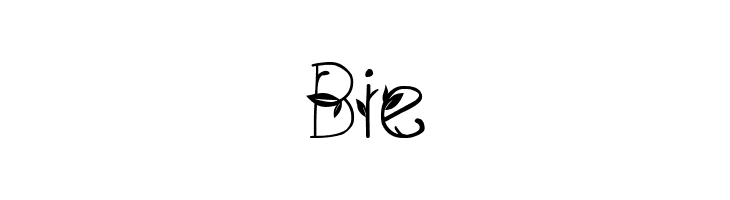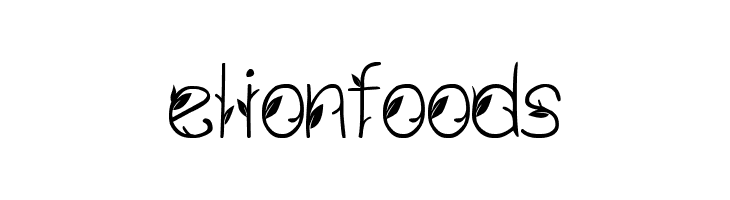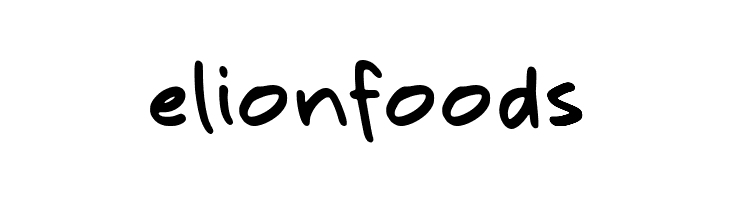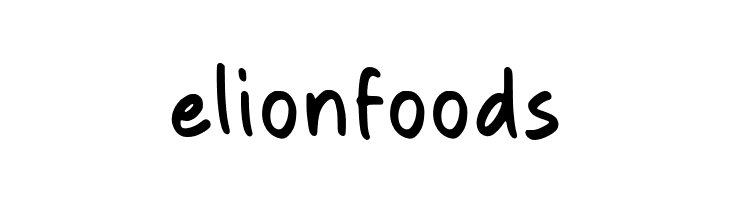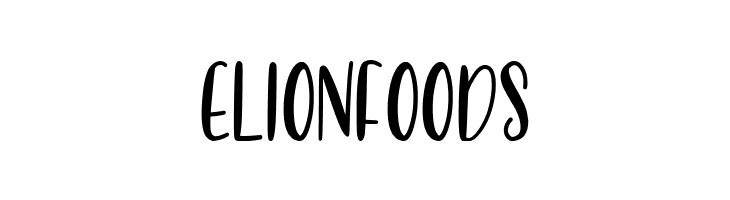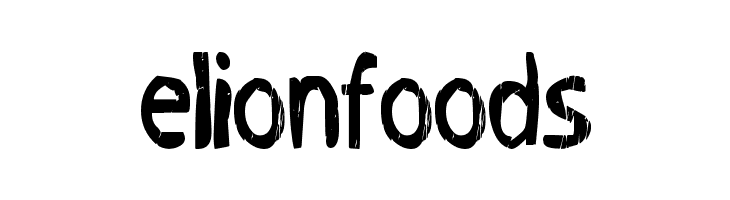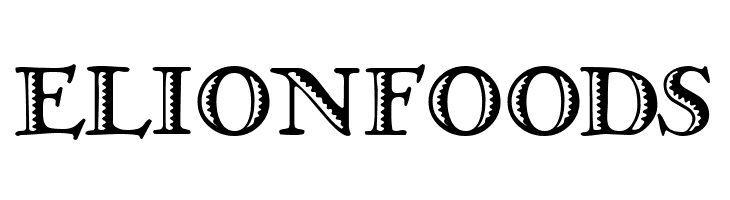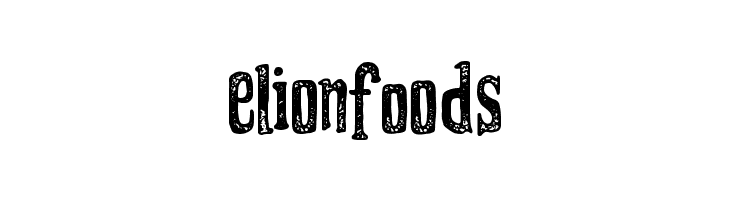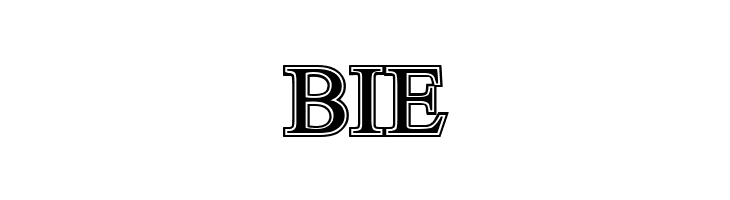
( Sebastian - greekhouseoffonts.com )
A bold, double-outline font inspired by traditional Greek lettering, ideal for decorative and impactful designs.
( Fonts by Ahmad Zulfikar Ali )
A decorative font with leaf motifs integrated into each character, offering a nature-inspired aesthetic.
( Fonts by Dave Fabik - home.teleport.com/~dfabik/ )
A decorative font with Art Deco influences, featuring intricate patterns and geometric elegance.
( Fonts by Dave Fabik - home.teleport.com/~dfabik/ )
A bold serif font with high contrast and elegant serifs.
A playful, handwritten font with irregular, organic strokes and a casual vibe.
A playful, handwritten font with smooth, rounded strokes and a casual style.
( Fonts by Thomas Ledin - tomledin.com )
( Lettersiro Studio - Muhammad Sirojuddin - creativemarket.com/Lettersiro )
A bold, textured font with a distressed, vintage style.
A playful, handwritten script font with bold, slightly condensed characters.